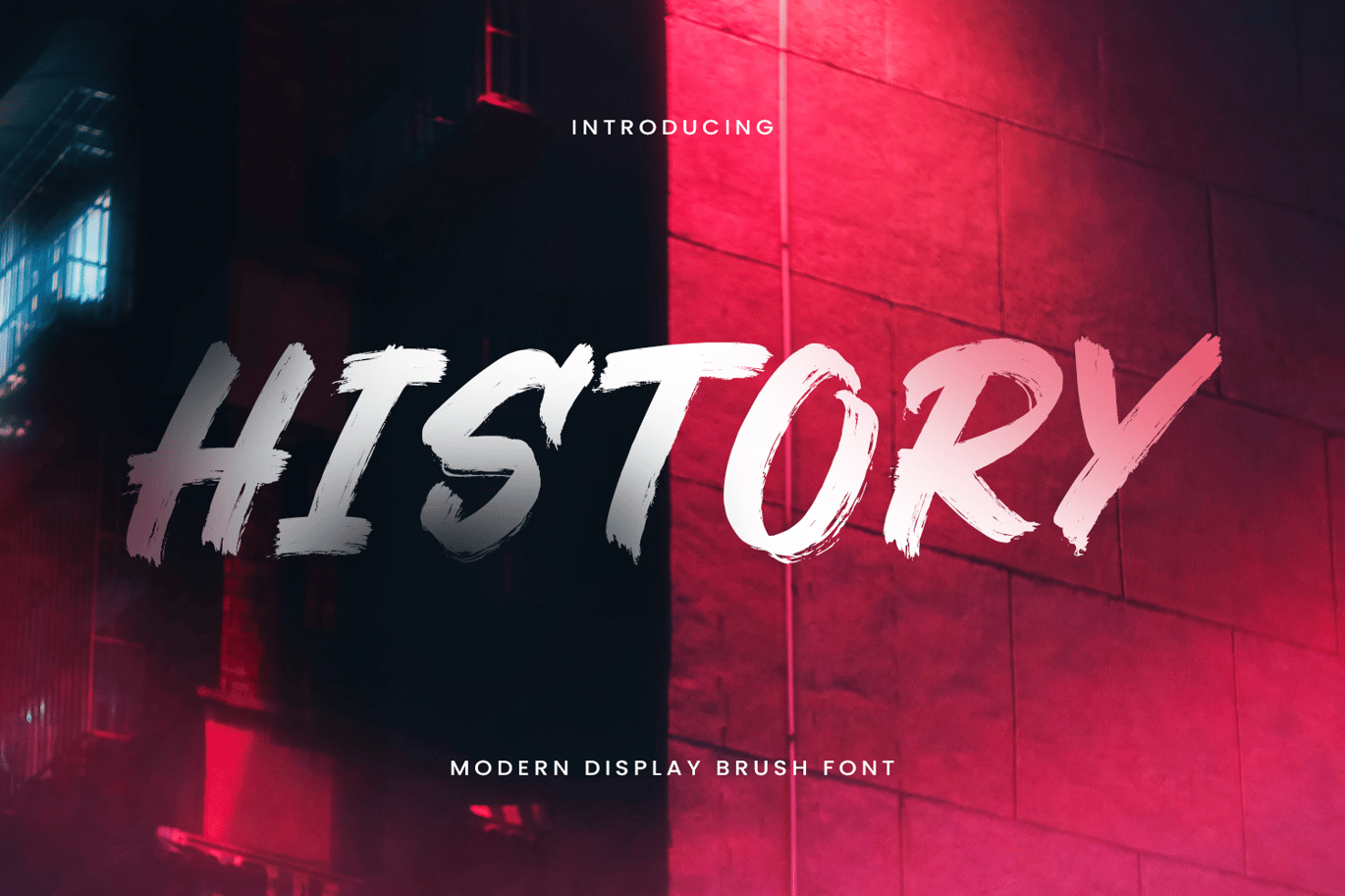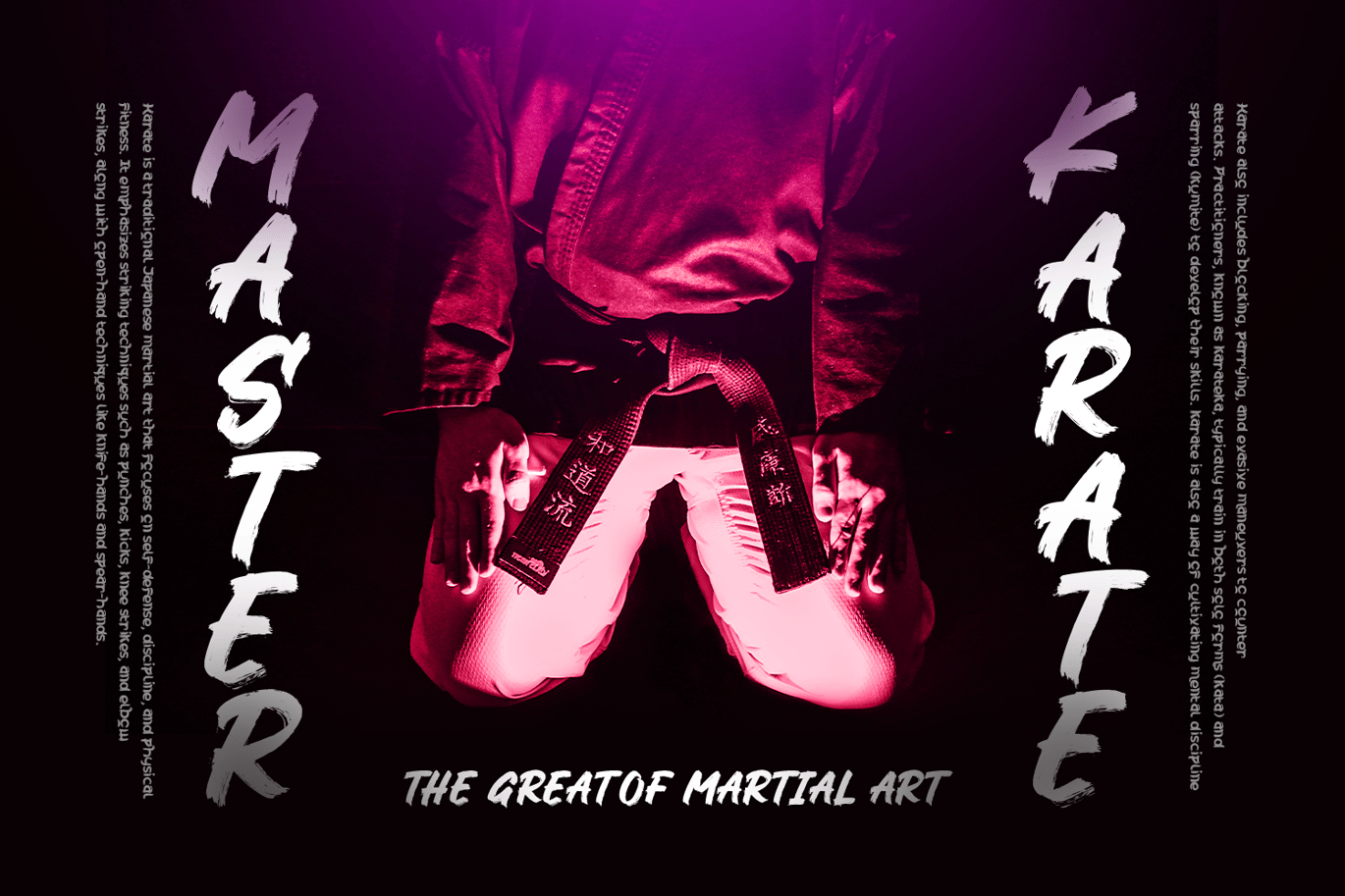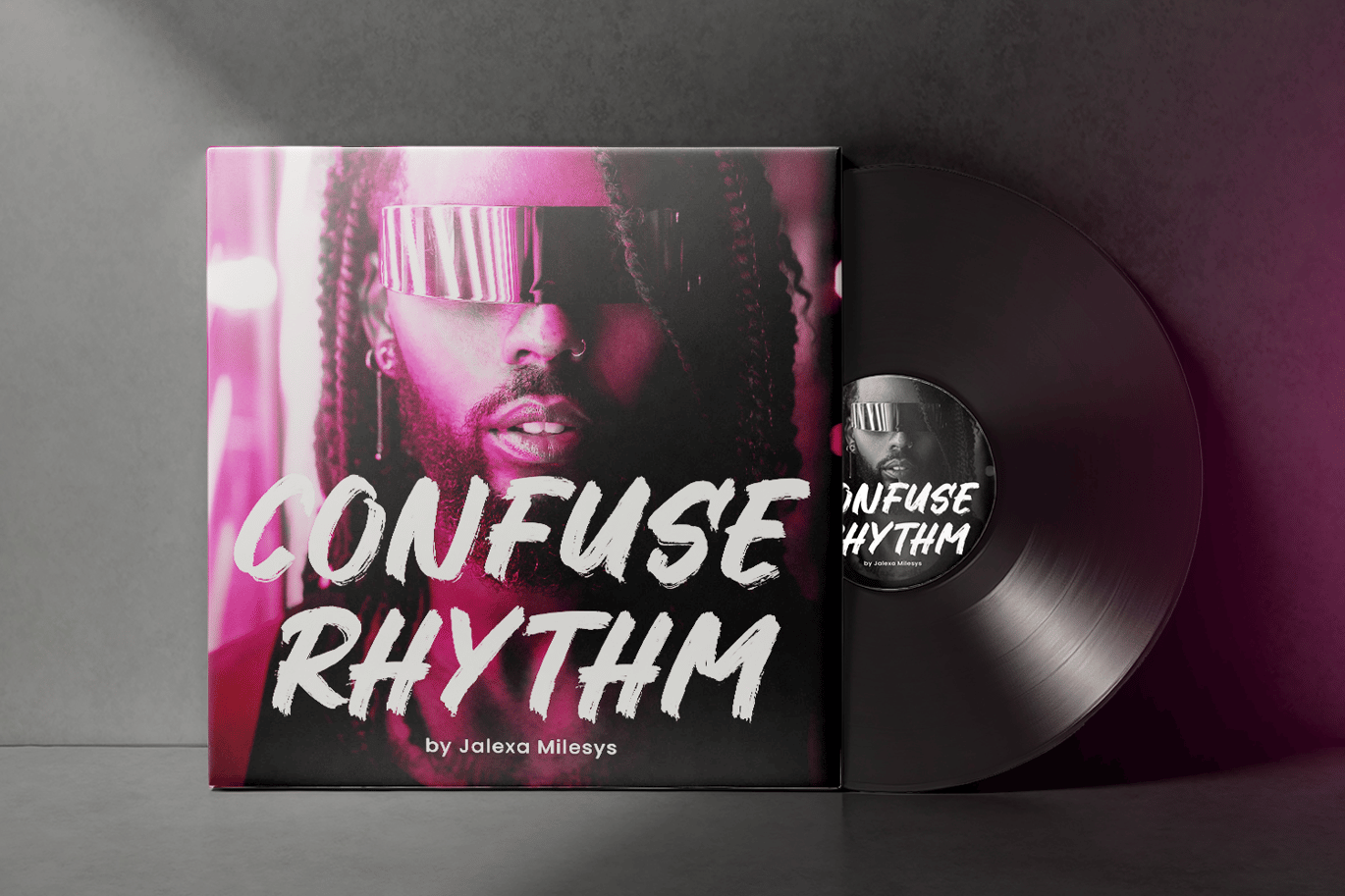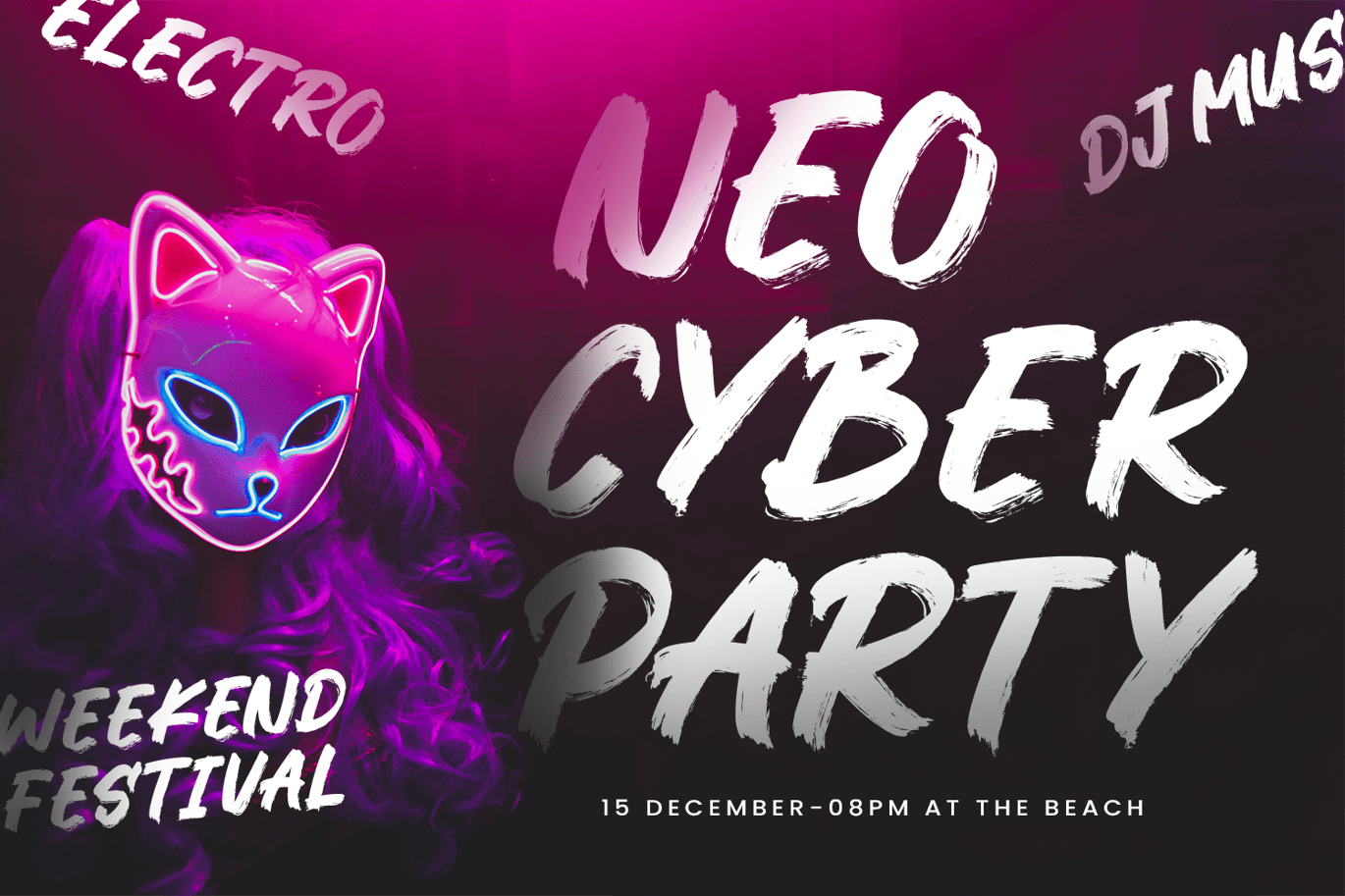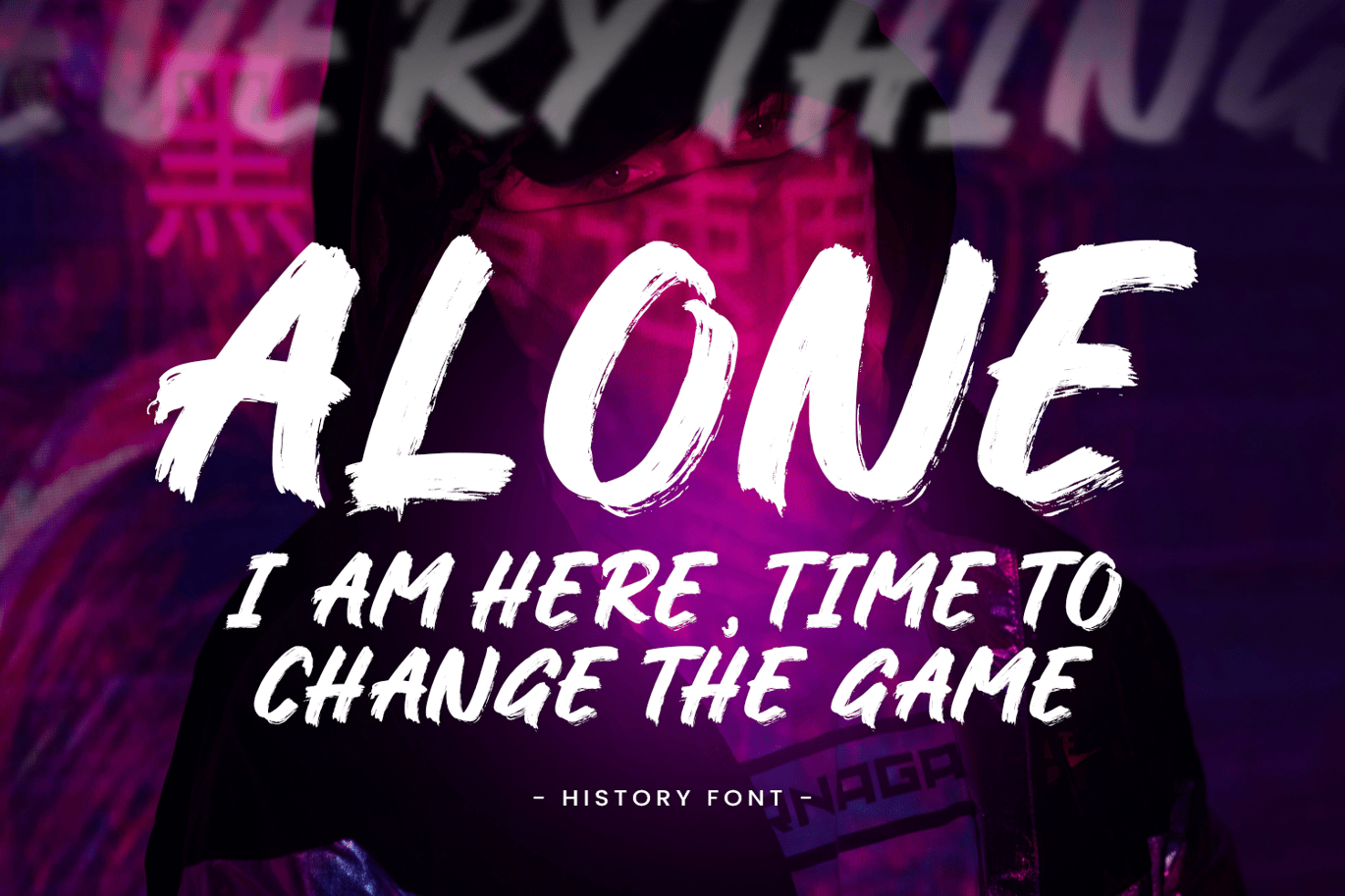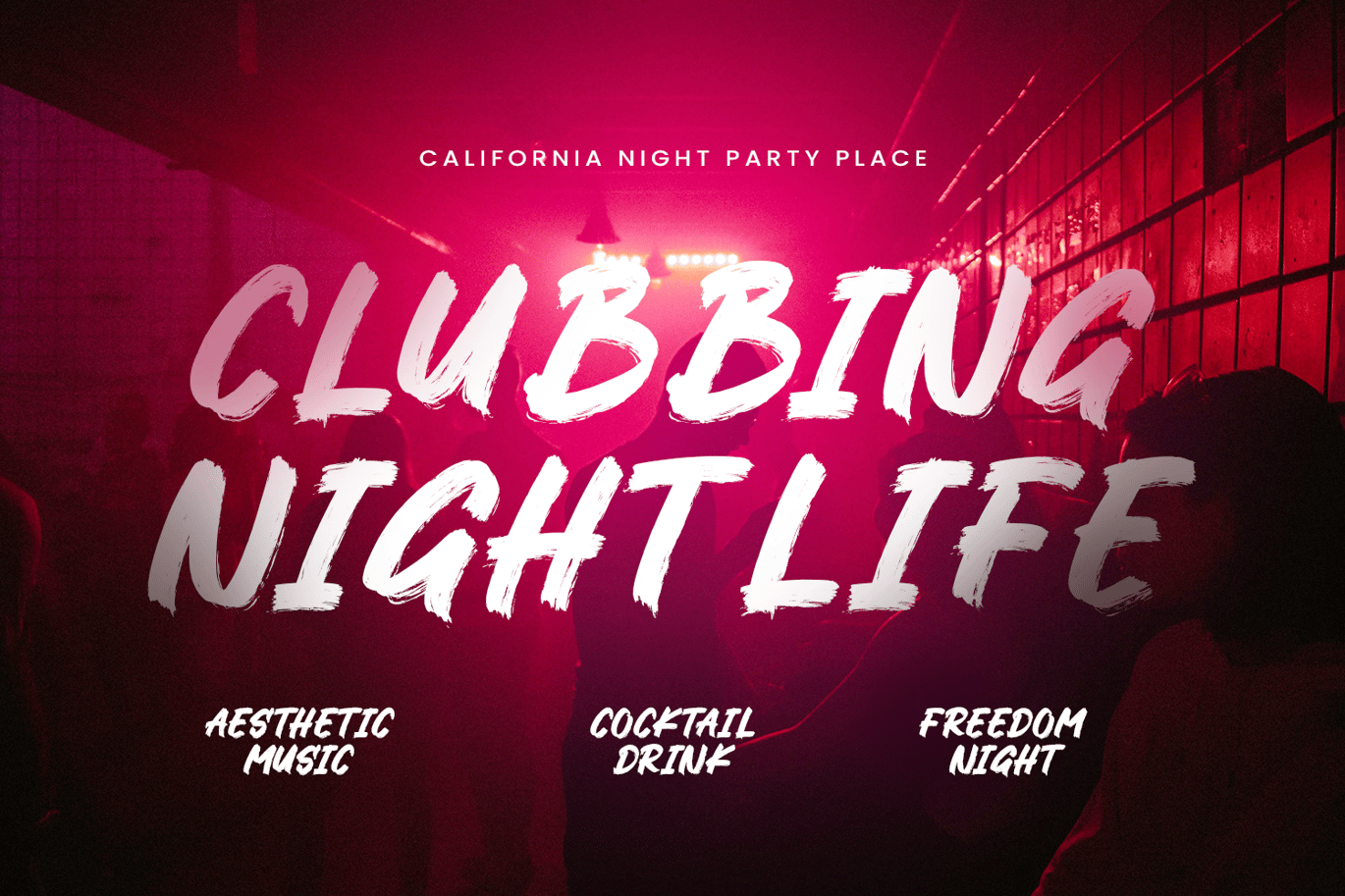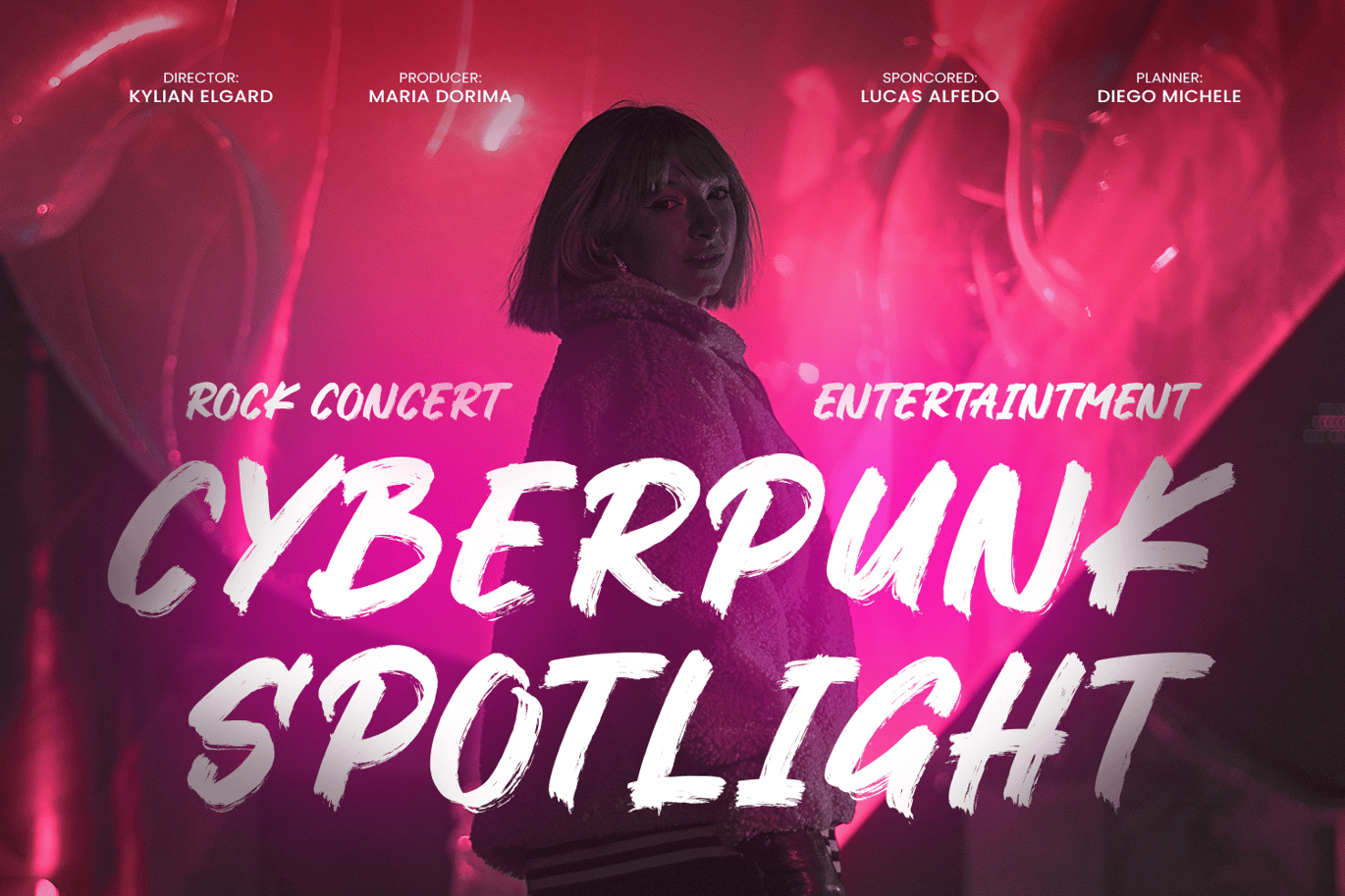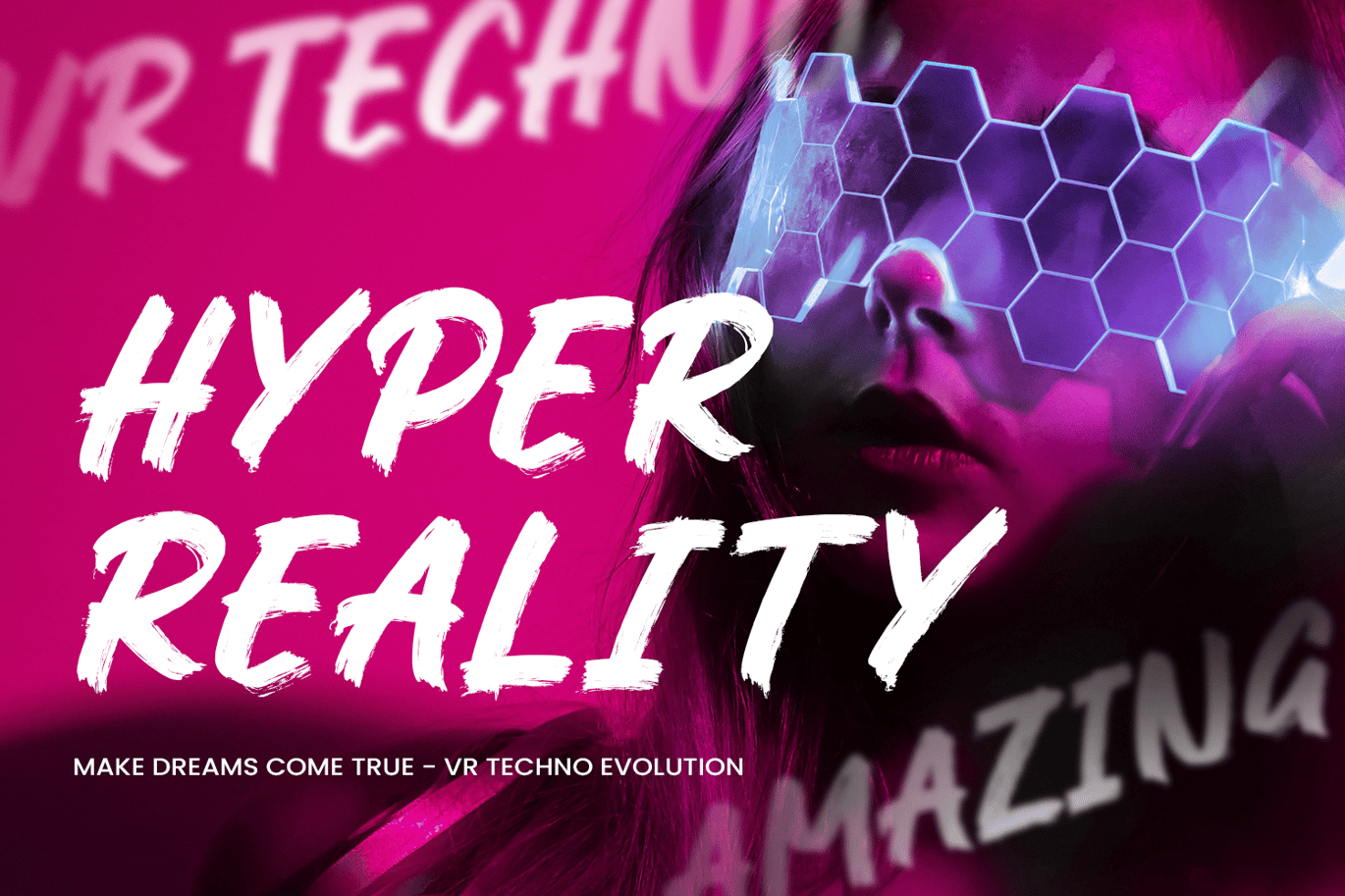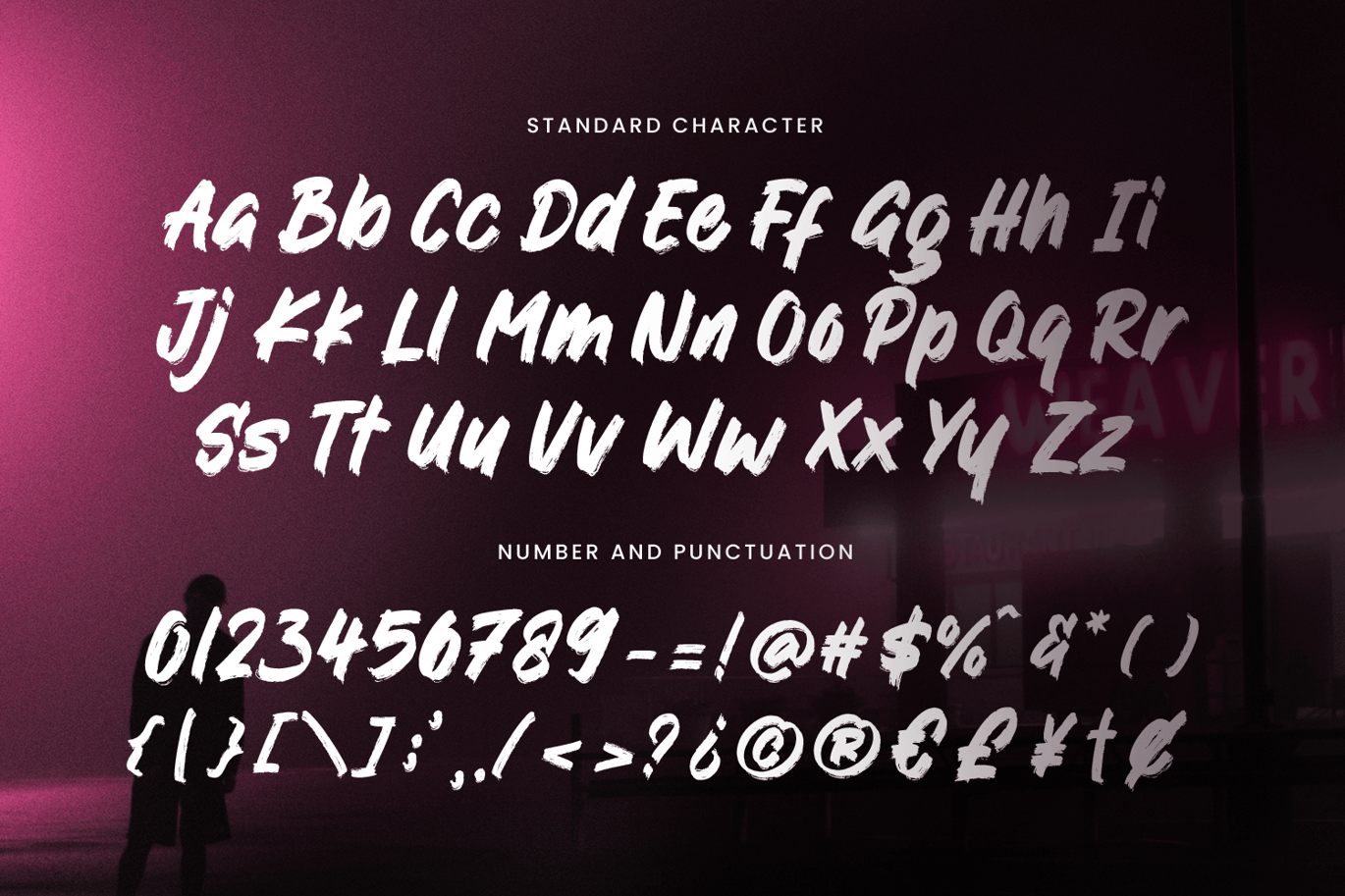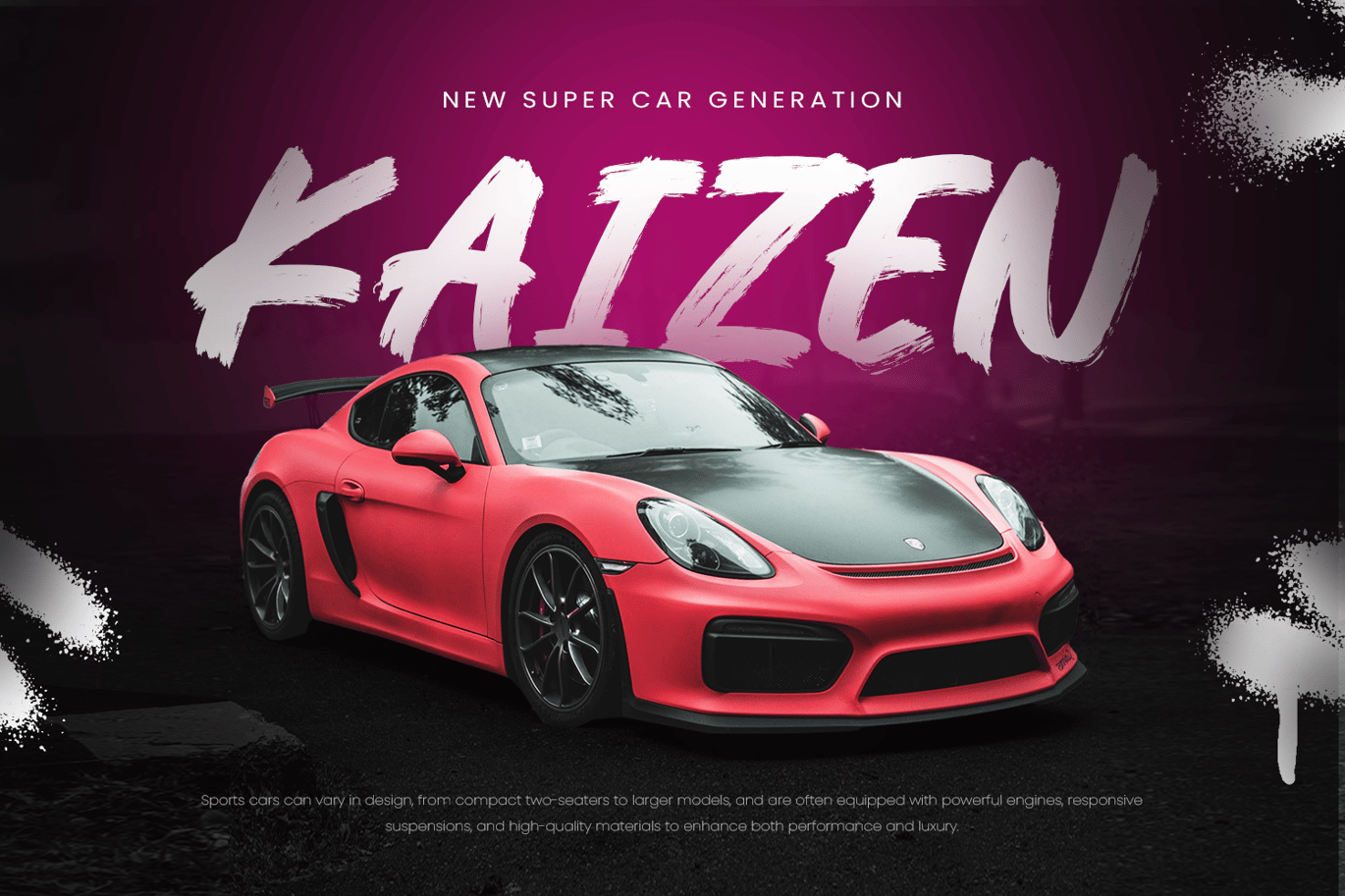
HISTORY – Brush Font
HISTORY is a bold, dynamic brush font infused with an energetic twist. This typeface is crafted to elevate branding, logo designs, poster art, book covers, invitations, packaging, headers, greeting cards, apparel, fashion campaigns, newsletters, album covers, quotes, and more. Its robust strokes bring an authentic flair to any project, ensuring eye-catching results.
A supercharged style with street-smart brush elements, HISTORY brims with energy and character. Meticulously designed with quick strokes and sharp details, this font excels in commanding attention for challenging titles, t-shirts, websites, hoodies, and other print or digital mediums. It adds a bold punch to any composition, making it an ideal choice for product packaging and impactful statements.
Drawing inspiration from brush lettering, HISTORY embodies a vibrant, artistic aesthetic. Its playful yet sophisticated nature enhances designs, ensuring they stand out. This font is versatile and visually compelling, suited for book covers, posters, packaging, merchandise, and logotypes, amplifying their appeal.
Engineered with attention to detail, HISTORY carries an edge that transforms ordinary text into powerful visual elements. It integrates seamlessly into projects needing a burst of creativity and presence. The font’s bold personality and handcrafted essence make it adaptable for a multitude of uses, from high-fashion visuals to casual merchandise.
- Standard & Multilingual glyphs.
- Fonts include multilingual support for; Afrikaans, Danish, Dutch, French, German, Indonesian, Irish, Italian, Norwegian, Portuguese, Scottish, Spanish, Swedish, Swiss etc.